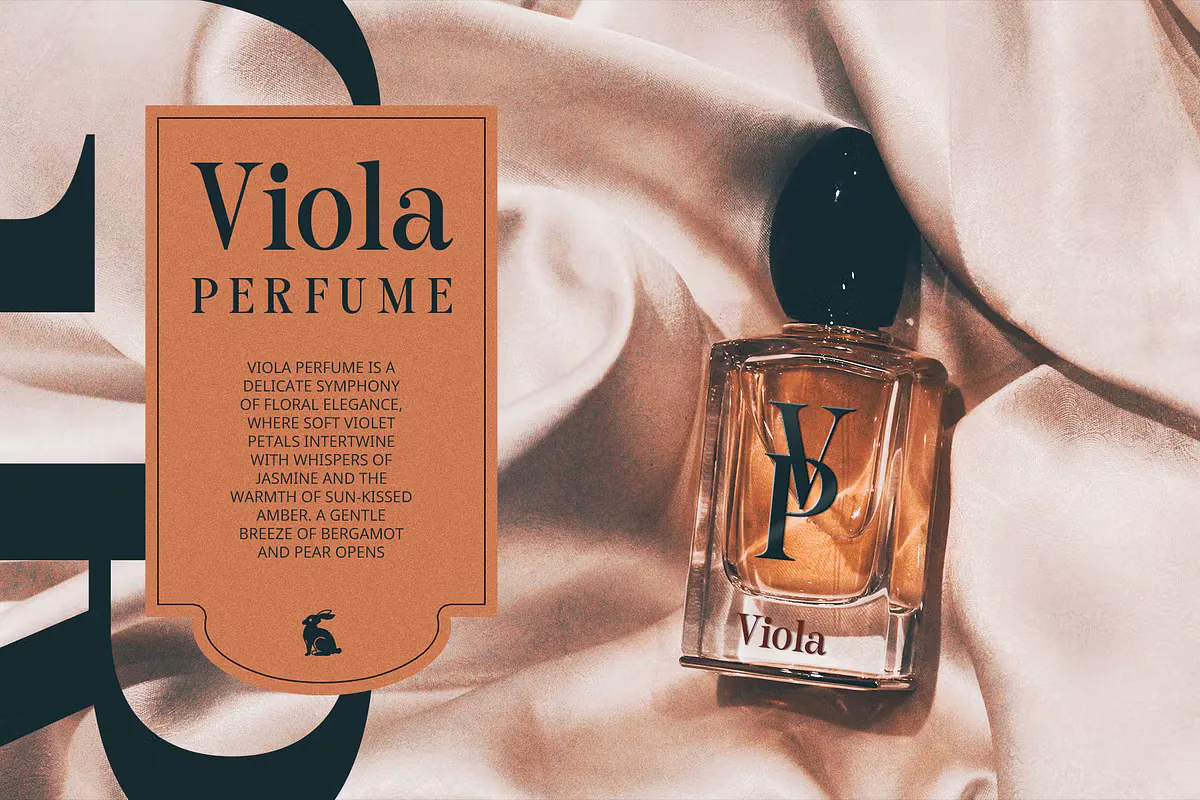
CS Quade is a modern serif typeface designed for aesthetic and sophisticated applications. With its sleek, tall structure and gracefully extended serif endings, it blends classic elegance with contemporary minimalism. This unique balance ensures that CS Quade remains timeless while still offering a fresh, modern touch—making it an excellent choice for high-end design projects.
Ideal for weddings, luxury branding, fashion magazines, and upscale product packaging, CS Quade embodies fashion, elegance, and romance. Whether used for logos, magazine headlines, or any material meant to evoke luxury, this typeface adds a refined and prestigious feel.
CS Quade Serif Font